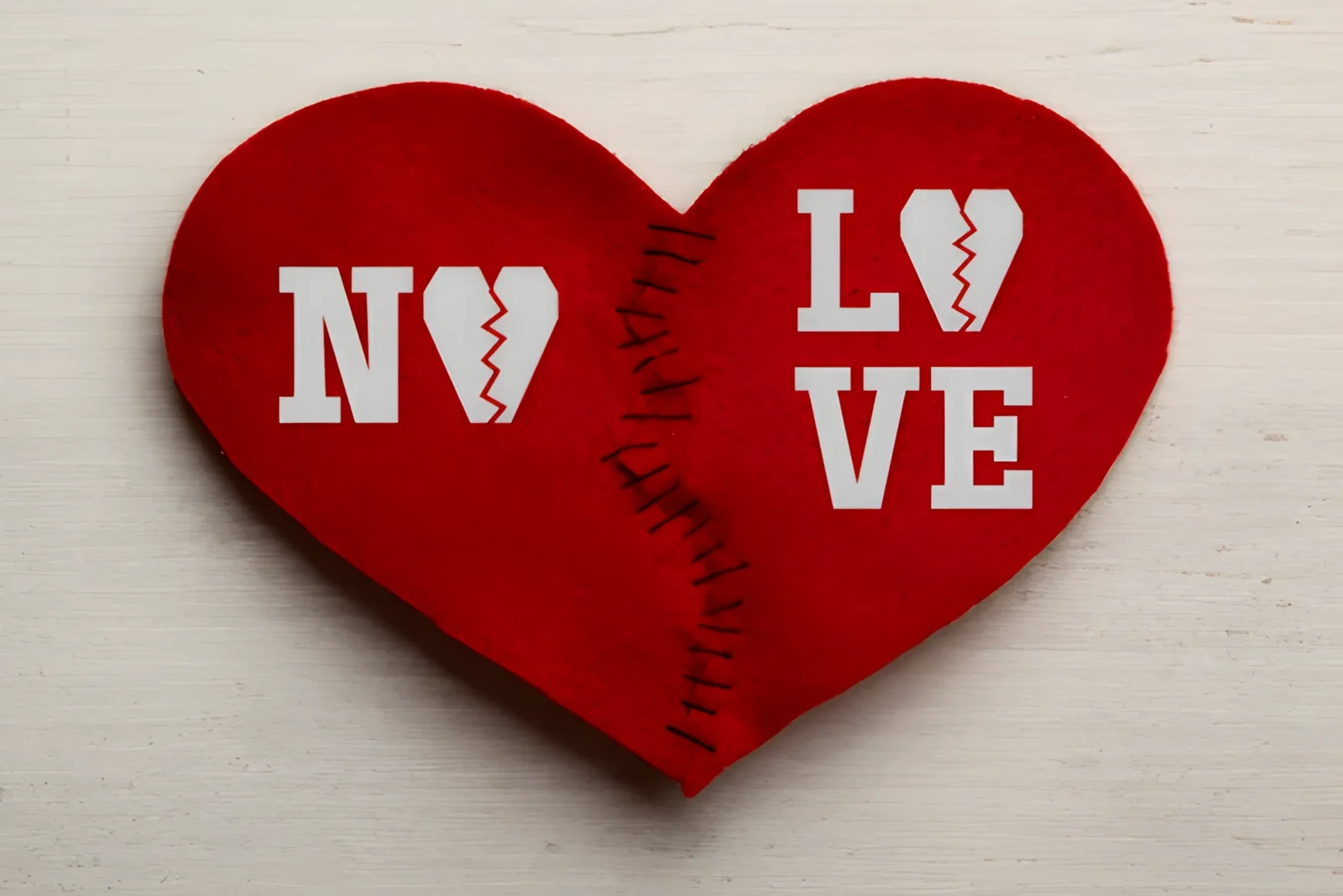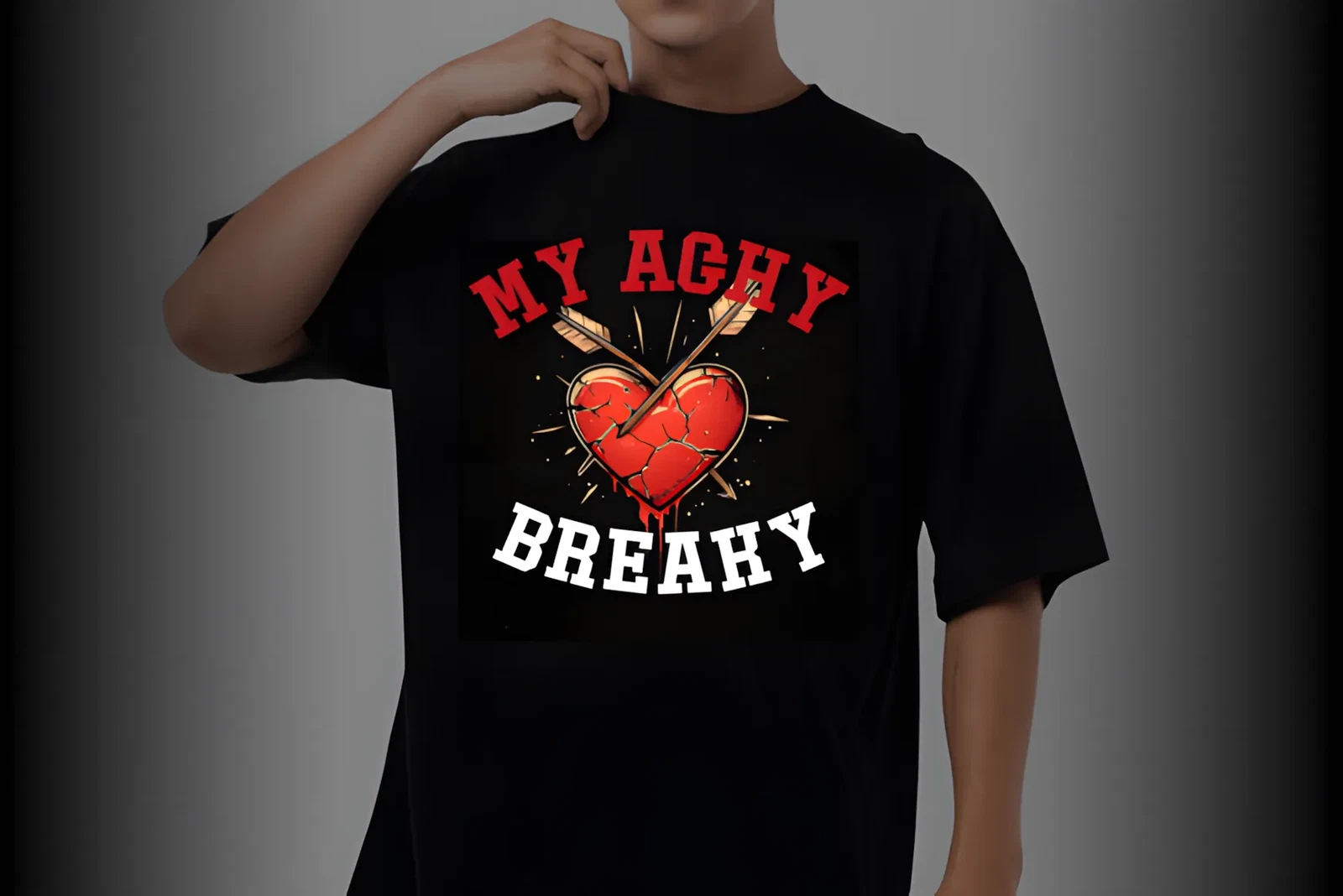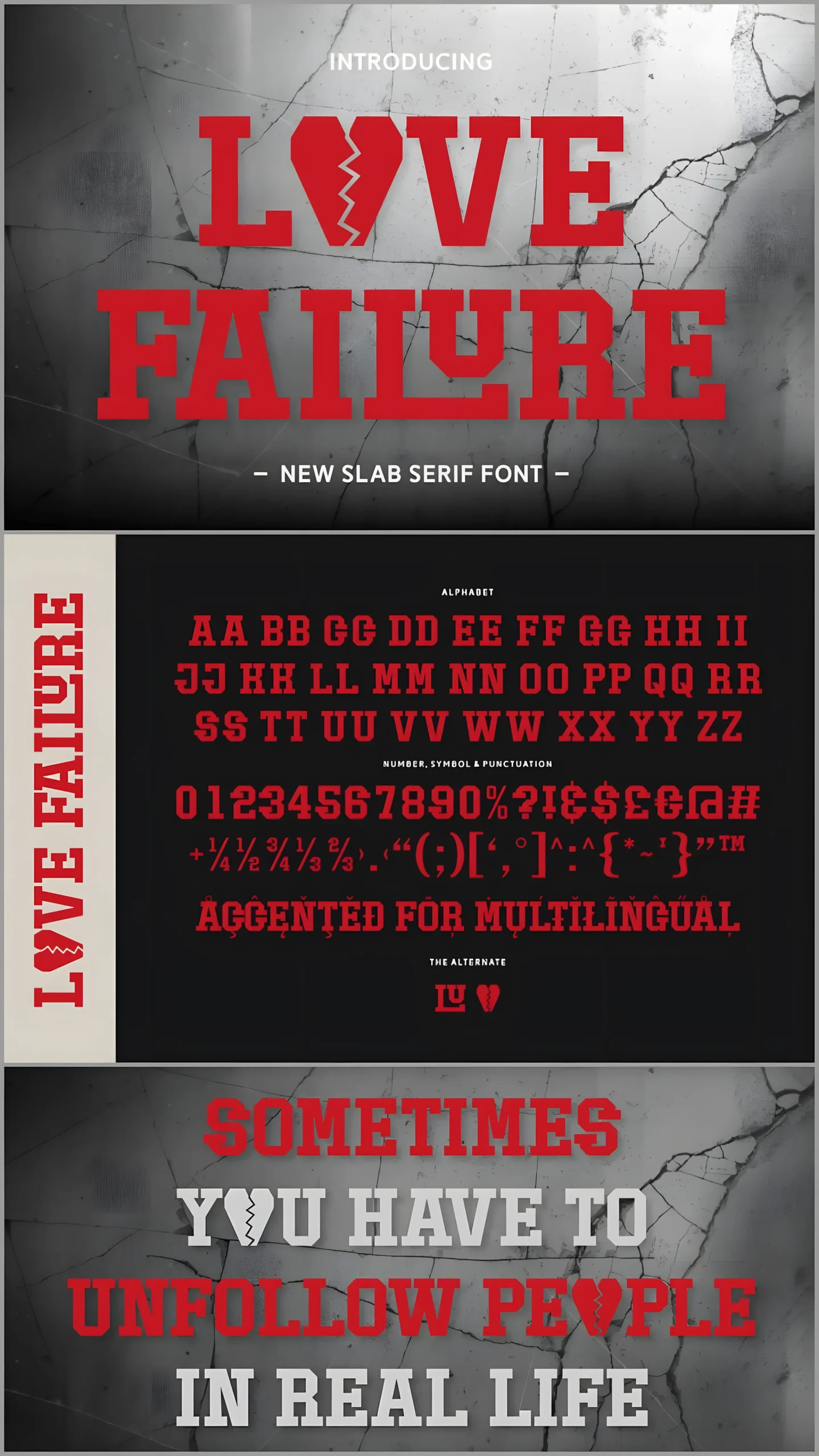
Some fonts are designed to feel safe and neutral. Love Failure Font clearly chooses a different direction. This slab serif typeface is built to communicate emotion, contrast, and visual strength. It feels bold, expressive, and slightly dramatic — typography that doesn’t try to hide its message.
The font combines strong slab serif construction with sharp details, making it suitable for designs that need impact and personality. It feels equally at home in emotional storytelling and bold promotional visuals.
Visual Style and First Impression
Love Failure Font delivers a heavy, confident appearance right away. The letterforms are thick and structured, with pronounced slab serifs that give the text a solid foundation. At the same time, the shapes carry a sense of tension and emotion rather than feeling purely mechanical.
There is a clear contrast between strength and vulnerability in the design. This duality makes the font especially interesting — it can feel bold and dramatic while still supporting themes related to love, relationships, and emotion.
The overall aesthetic feels modern but expressive, avoiding overly decorative elements while still standing out visually.
A Slab Serif With Character
As a slab serif font, Love Failure relies on weight and structure rather than ornamentation. The serifs are strong and deliberate, giving the typeface authority and presence.
This makes the font suitable for:
- emotional quotes
- expressive headlines
- impactful titles
- bold statements
The design doesn’t rely on subtlety. Instead, it uses form and contrast to communicate feeling and emphasis.
Practical Design Applications
Book Covers and Editorial Design
One of the strongest use cases for Love Failure Font is book cover design. The bold slab serif style works especially well for:
- romance novels
- drama and fiction
- emotional storytelling
- modern editorial covers
Titles set in this font feel serious and expressive, helping to establish tone before the content is even read.
Branding and Logotypes
Love Failure Font also performs well in branding and logo design. Its strong shapes make logos feel confident and memorable, particularly for brands that want to communicate emotion or bold identity.
It works well for:
- personal brands
- creative studios
- product branding
- expressive logotypes
Used carefully, the font can anchor a visual identity without overpowering it.
Posters, Promotions, and Quotes
In posters and promotional materials, Love Failure Font delivers immediate impact. Headlines feel bold and deliberate, making them easy to read from a distance.
The font is especially effective for:
- promotional posters
- quote graphics
- event announcements
- product highlights
Its structure allows text to remain legible even at large sizes.
Apparel and Craft Projects
Love Failure Font translates well to physical products. The strong slab serif shapes hold up nicely in print and cutting applications, making the font suitable for:
- t-shirts
- merchandise
- vinyl designs
- craft and DIY projects
Readability and Usage Notes
Although Love Failure Font is bold, readability remains solid. The spacing and proportions allow text to stay clear, especially in short phrases and headlines.
As with most display slab serif fonts, it is best used for:
- titles
- headlines
- featured text
For long paragraphs, pairing it with a lighter supporting font helps maintain visual comfort.
Emotional Tone and Design Feel
The emotional tone of Love Failure Font is bold and expressive. It feels intense without being aggressive and emotional without becoming decorative.
This makes it especially suitable for designs that explore themes such as:
- love and heartbreak
- strength and vulnerability
- emotion-driven storytelling
The font supports messages that need to feel honest and impactful rather than neutral.
It is not intended for long-form reading, but as a display slab serif font, it delivers strong presence and clarity.
Love Failure Font is a slab serif typeface built around emotion and impact. Its bold structure and expressive character make it a strong choice for designs that need to communicate feeling as much as information.
For designers looking for a font that feels confident, dramatic, and visually honest, Love Failure Font offers a powerful solution. Used thoughtfully, it adds depth and intensity to projects that aim to leave a lasting impression.